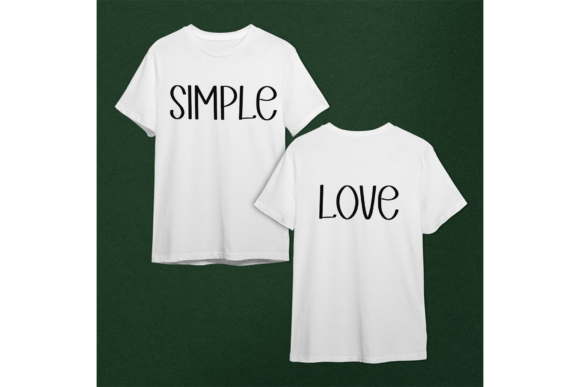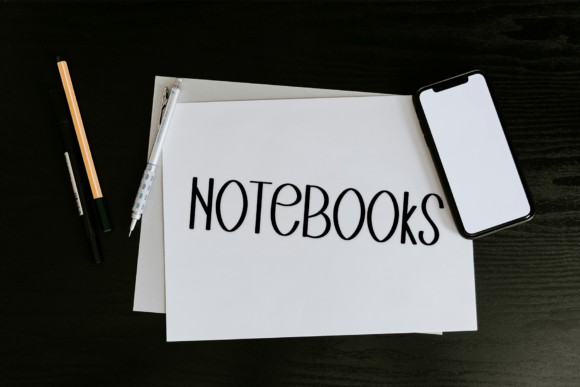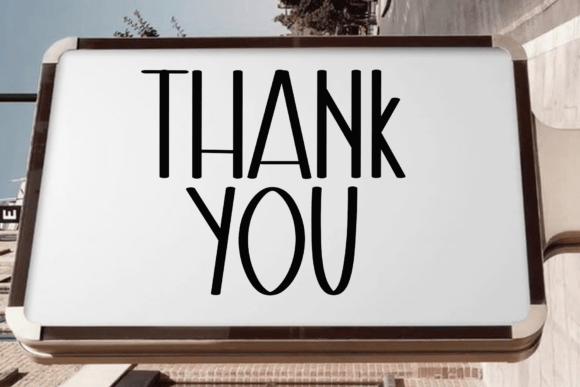
The Perfect Blend of Playfulness and Professionalism: A Deep Dive into Alphabet Font
I’ll never forget the time I was working on a branding project for a handmade jewelry client. I had spent hours perfecting the logo design, but something felt off. The font I had chosen just wasn’t giving me the vibe I wanted – it felt too formal, too generic. That’s when I stumbled upon Alphabet Font, and it completely transformed my design. The tall, narrow letterforms and casual vibe were exactly what I needed to give my client’s brand a human touch. In this article, I’ll share my love for Alphabet Font, its features, and how to make the most of it in your designs.
An Honest Review of Alphabet Font
• ✨ Clean and quirky handwritten display font that’s perfect for modern creatives
• ✅ Tall, narrow letterforms that add a touch of elegance to any design
• ✅ Casual vibe that’s approachable and friendly
• ✅ Perfect blend of professionalism and playfulness
While Alphabet Font is an amazing choice for many designs, there are a few things to keep in mind:
• ⚠️ Some of the letterforms can be a bit quirky, which might not work for very formal or traditional designs
• 🤔 Limited availability of certain OpenType features, which might limit its use in certain software
The Story Behind Alphabet Font
Alphabet Font was designed with modern creatives in mind. Its creator wanted to craft a font that was both playful and professional, with a unique personality that would stand out in any design. The result is a font that’s perfect for handmade products, logos, greeting cards, packaging, and journaling.
Q: What is Alphabet Font best used for?
A: Alphabet Font is perfect for designs that need a human touch and a modern, playful vibe. It’s great for handmade products, logos, greeting cards, packaging, and journaling.
Q: Can I use Alphabet Font in my digital designs?
A: Absolutely! Alphabet Font is versatile and can be used in a variety of digital designs, from social media graphics to website headers.